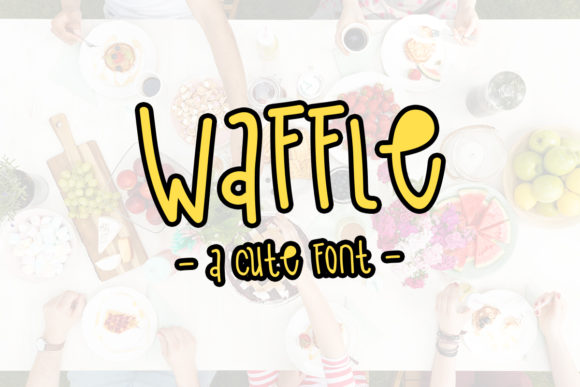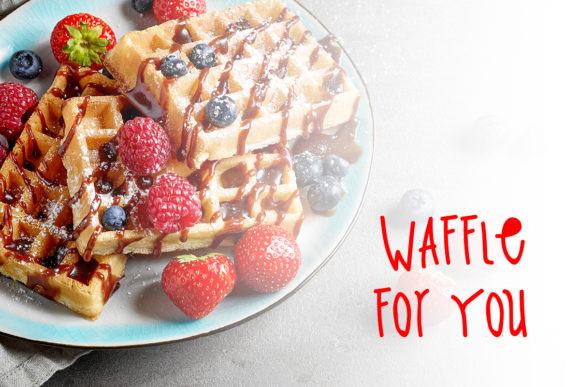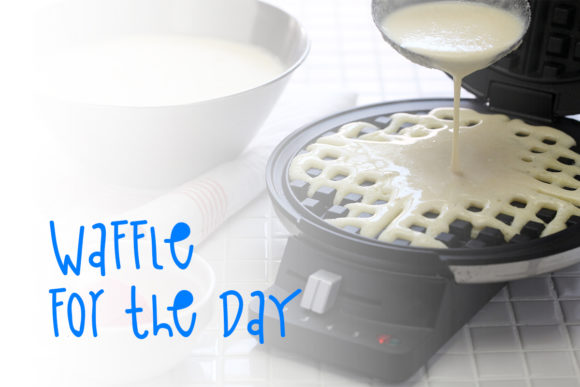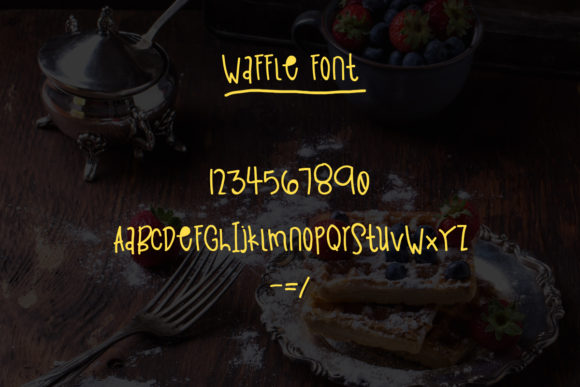
HomeScript FontsWaffle Font Script Fonts Waffle Font FacebookXPinterestWhatsApp Waffle Font Poster 2 Waffle Font Poster 3 Waffle Font Poster 4 About Waffle Font The Waffle is a fun script font which will add a playful touch to your designs. DOWNLOAD ON CREATIVE FABRICAThis font is sold and delivered by Creative Fabrica. Font Canyon may earn a commission if you buy through this link. People also explored Breathany Font Christon Hunington Font Arabesque Font Mountey Kalinas Font Samantha Font Hobbyhorse Font Romantic Sunday Font Madeline Font Vectipede 265 0 TagsWaffle Font Previous articleThe Good Food FontNext articleMellow Font LEAVE A REPLY Cancel reply Comment: Please enter your comment! Name:* Please enter your name here Email:* You have entered an incorrect email address! Please enter your email address here Website: Save my name, email, and website in this browser for the next time I comment. Personal Use Free Cuttering Personal Use Free Read more about this font Gonestones Personal Use Free Read more about this font Broodfath Personal Use Free Read more about this font The Moshbusther Personal Use Free Read more about this font BLOG Exploring Font Trends Shaping Communication in the Digital Era Fonts, like all design elements, are subject to trends. They play a crucial role in communicating a brand's personality,... How to Install and Use Fonts on Windows, macOS, and Web Projects Elegant Wedding Invitation Fonts – Handwritten & Script Fonts Top 10 Handwritten Fonts That Elevate Your Designs